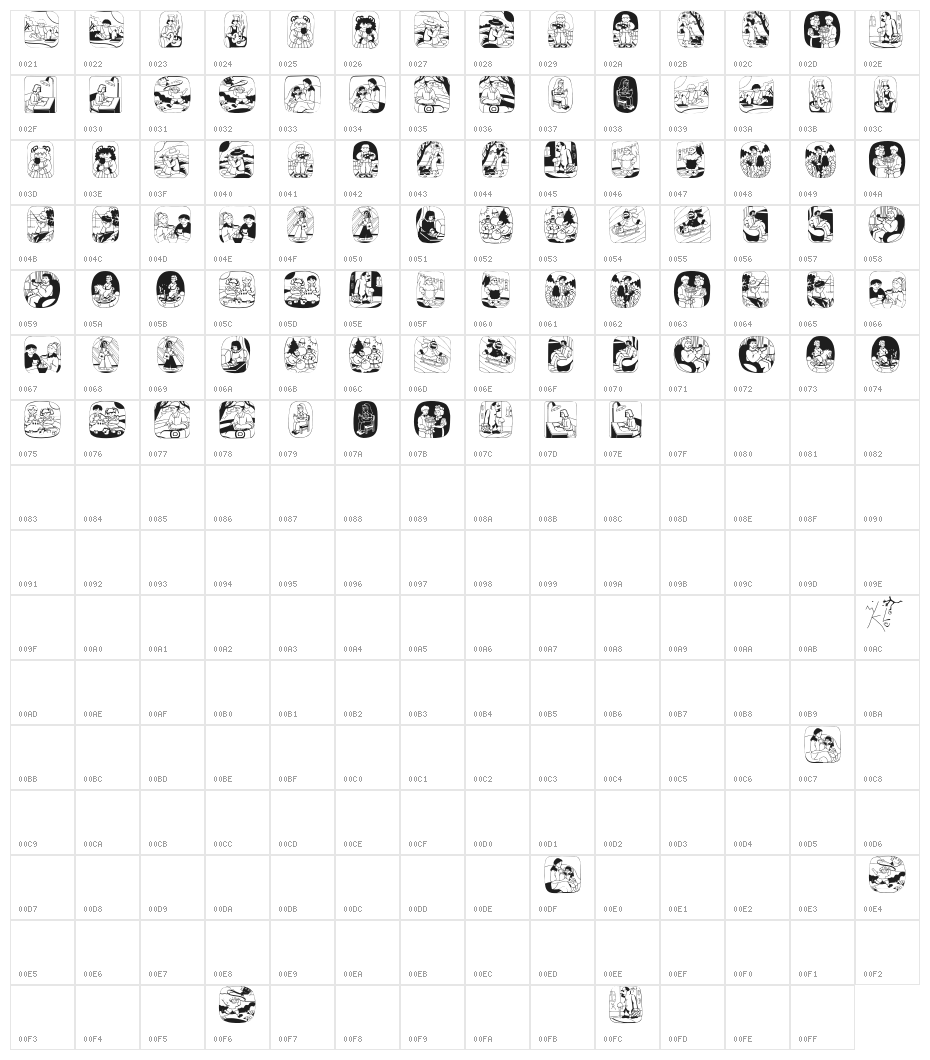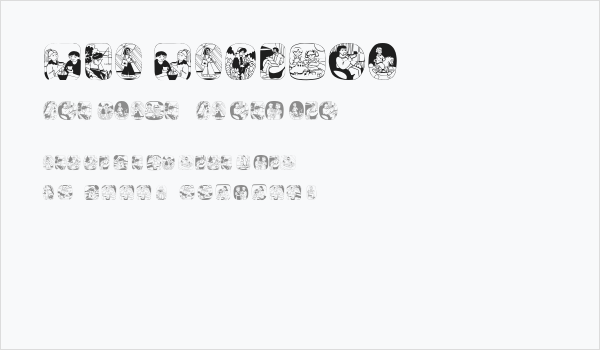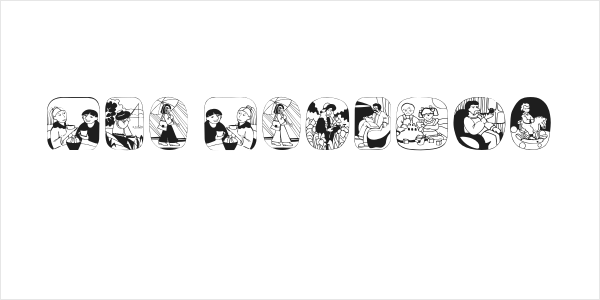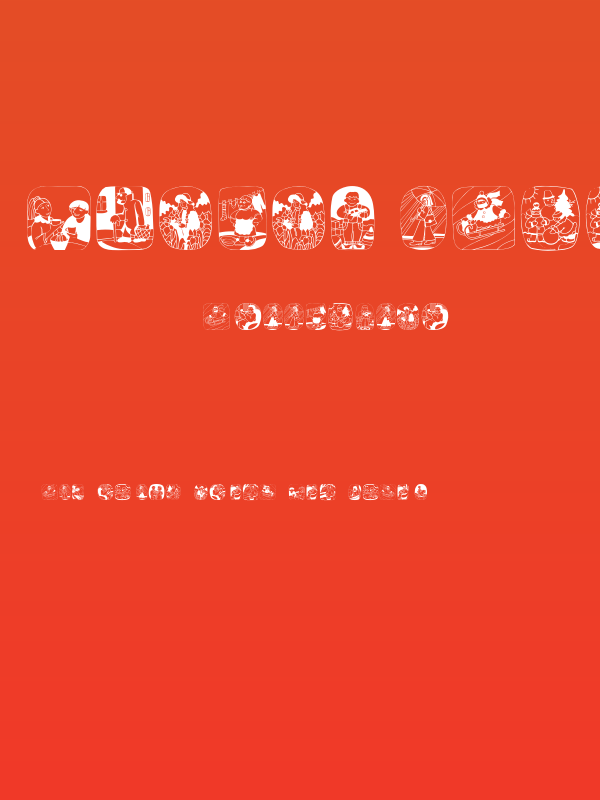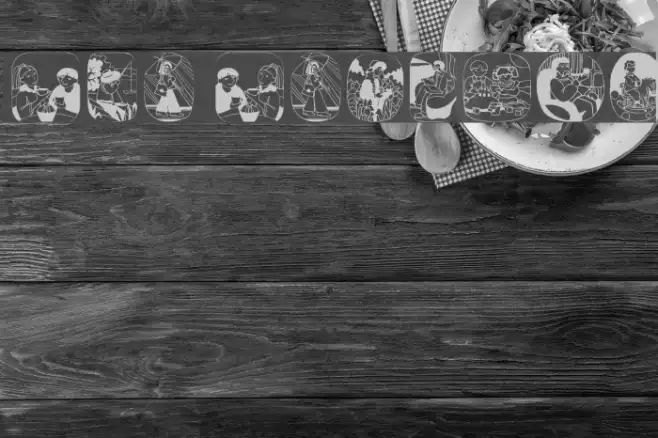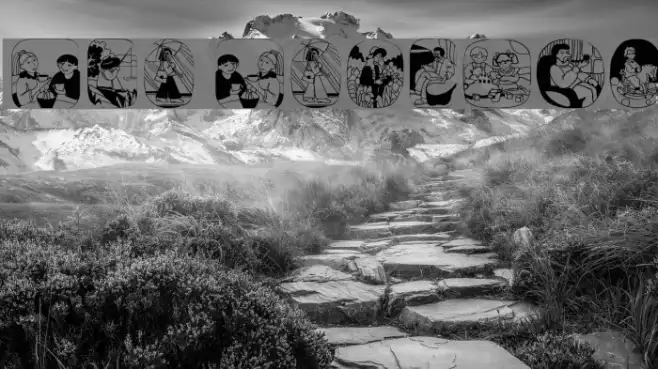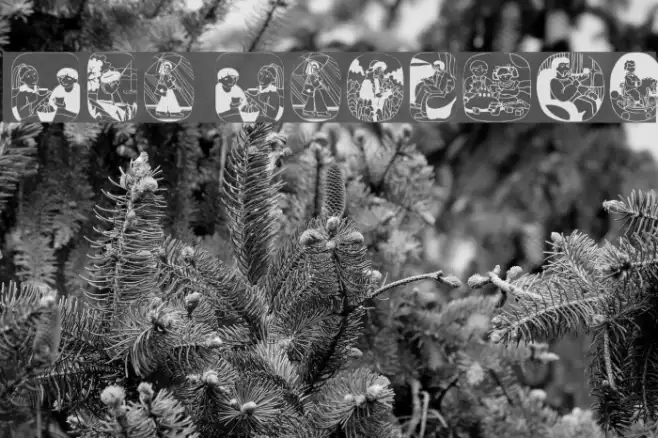
Neighbours Font
Neighbours Description
A decorative display font where each character is represented by a unique, detailed illustration of people interacting in various neighborly or community scenarios, enclosed in rounded rectangles. The style is hand-drawn with clear black and white linework, featuring a playful and friendly tone.
| Overall Style | Decorative, Playful, Hand-drawn |
| Use Case | Headlines, Logos, Posters, Themed projects |
| Proposed Projects | Children’s books, community event posters, educational materials, playful branding, greeting cards. |